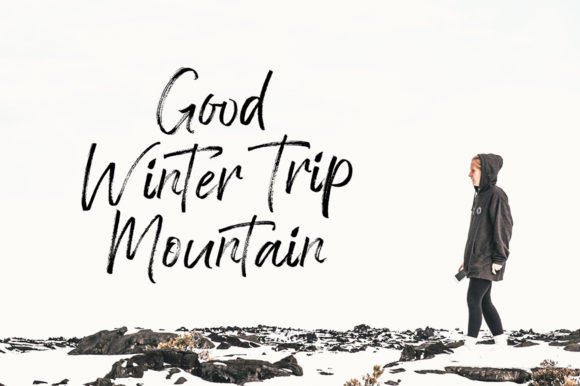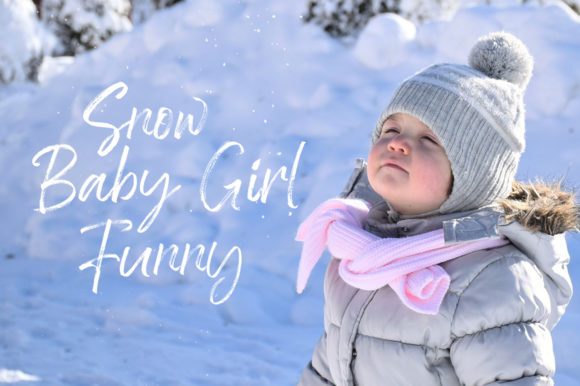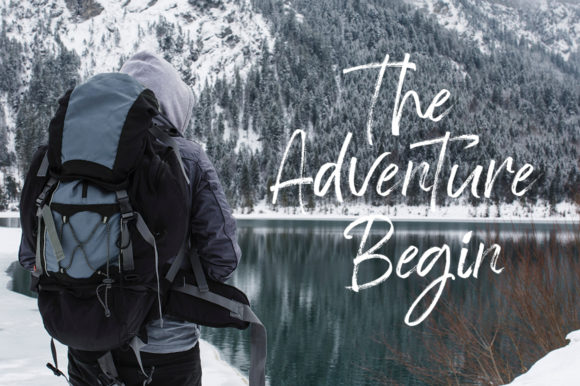
Hello Freshtea Font: A Fresh and Dynamic Script for Modern Designs
Hello Freshtea is an incredibly fresh and dynamic script that features a contemporary approach to design. Get inspired by its playful vibe! This stunning font is perfect for designers and crafters looking to add a touch of modernity and whimsy to their projects. In this article, we’ll dive into the world of Hello Freshtea, exploring its unique features, and what makes it an excellent choice for a wide range of design applications.
The Inspiration Behind Hello Freshtea
Hello Freshtea’s design is rooted in the desire to create a script that embodies the spirit of freshness and playfulness. Its creators aimed to craft a font that would be both elegant and approachable, making it suitable for a variety of design projects, from branding and advertising to packaging and digital media. The result is a font that exudes a sense of fun and energy, perfect for designers looking to add a dash of personality to their work.
Key Features of Hello Freshtea
Hello Freshtea boasts a range of features that make it an attractive choice for designers. Some of its key characteristics include:
• Unique Letterforms: Hello Freshtea features distinctive letterforms that are both modern and stylish. Its letters are designed to be highly legible, making it perfect for use in body text and headlines.
• Dynamic Swashes: The font comes with a range of dynamic swashes that add a touch of elegance and sophistication to any design.
• Contemporary Approach: Hello Freshtea’s design takes a contemporary approach to script typography, making it perfect for designers looking for a fresh and modern look.
• Playful Vibe: The font’s playful vibe makes it ideal for designs that require a touch of whimsy and personality.
Uses for Hello Freshtea
Hello Freshtea’s versatility makes it suitable for a wide range of design applications. Here are some ideas to get you started:
• Branding and Identity: Use Hello Freshtea to create a unique and memorable brand identity that stands out from the crowd.
• Advertising and Marketing: The font’s playful vibe and dynamic swashes make it perfect for use in advertising and marketing materials, such as brochures, flyers, and social media graphics.
• Packaging Design: Hello Freshtea’s modern and stylish design makes it an excellent choice for packaging design, adding a touch of sophistication and elegance to any product.
• Digital Media: The font’s legibility and unique letterforms make it perfect for use in digital media, such as website headers, mobile apps, and video scripts.
Tips for Using Hello Freshtea
To get the most out of Hello Freshtea, here are some tips to keep in mind:
• Experiment with Swashes: Don’t be afraid to experiment with Hello Freshtea’s dynamic swashes to add a touch of elegance and sophistication to your design.
• Mix and Match: Combine Hello Freshtea with other fonts to create a unique and visually appealing typography scheme.
• Pay Attention to Legibility: While Hello Freshtea is designed to be highly legible, it’s essential to ensure that your text is clear and easy to read, especially when using the font in body text.
Hello Freshtea is an incredibly fresh and dynamic script that offers a contemporary approach to design. Its playful vibe, unique letterforms, and dynamic swashes make it an excellent choice for designers and crafters looking to add a touch of modernity and whimsy to their projects. With its versatility and range of uses, Hello Freshtea is sure to become a go-to font for designers looking to create stunning and effective designs.
So, get inspired by Hello Freshtea’s playful vibe and take your designs to the next level! Explore the font’s unique features, experiment with its swashes, and discover the endless possibilities that Hello Freshtea has to offer.